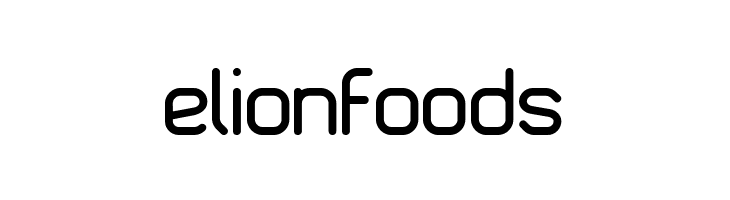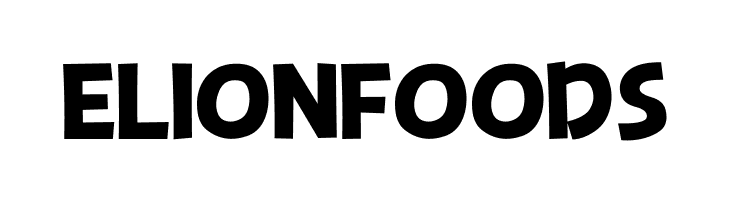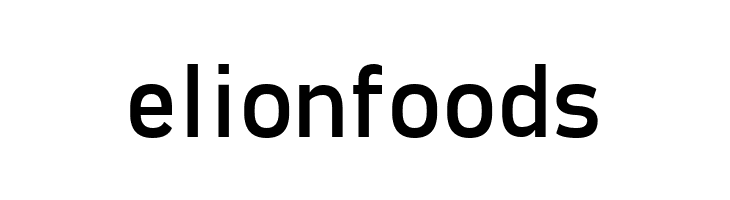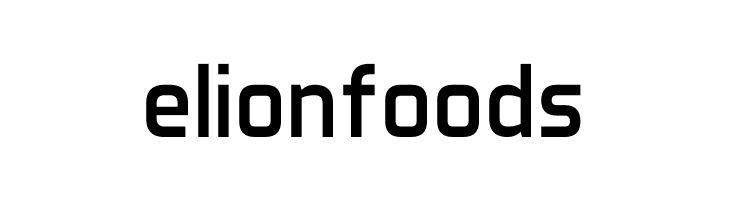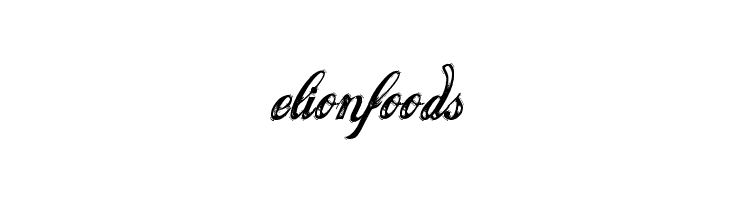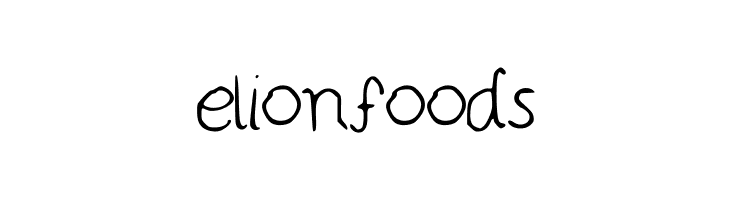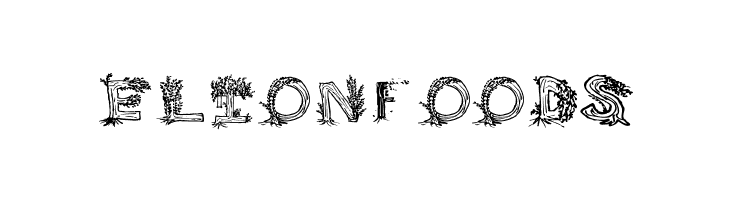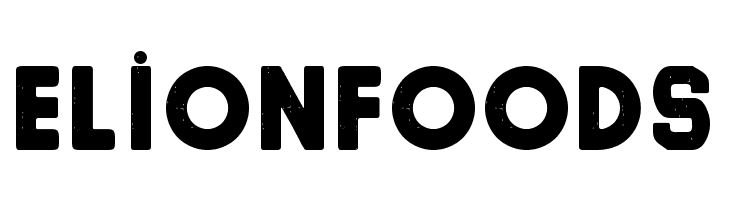
( Font by Sven Stuber - www.superlooper.de )
A modern, rounded font with smooth curves and a clean, geometric structure.
( Font by Jayvee D. Enaguas - grandchaos9000.deviantart.com )
A bold, playful font with rounded, whimsical characters.
( Font by Jayvee D. Enaguas - grandchaos9000.deviantart.com )
A modern, sans-serif font with clean, geometric letterforms and uniform stroke width.
( Font by Jayvee D. Enaguas - grandchaos9000.deviantart.com )
( Fonts by Andrew Hart - dirt2.com )
An ornate and dramatic font with intricate swirls and high contrast.
( Fonts by Jonathan Harris - www.tattoowoo.com )
A bold, hand-drawn font with a textured, scribble-like pattern.
( Fonts by www.paintblackeditions.org )
A bold, geometric font with a vintage, distressed texture.